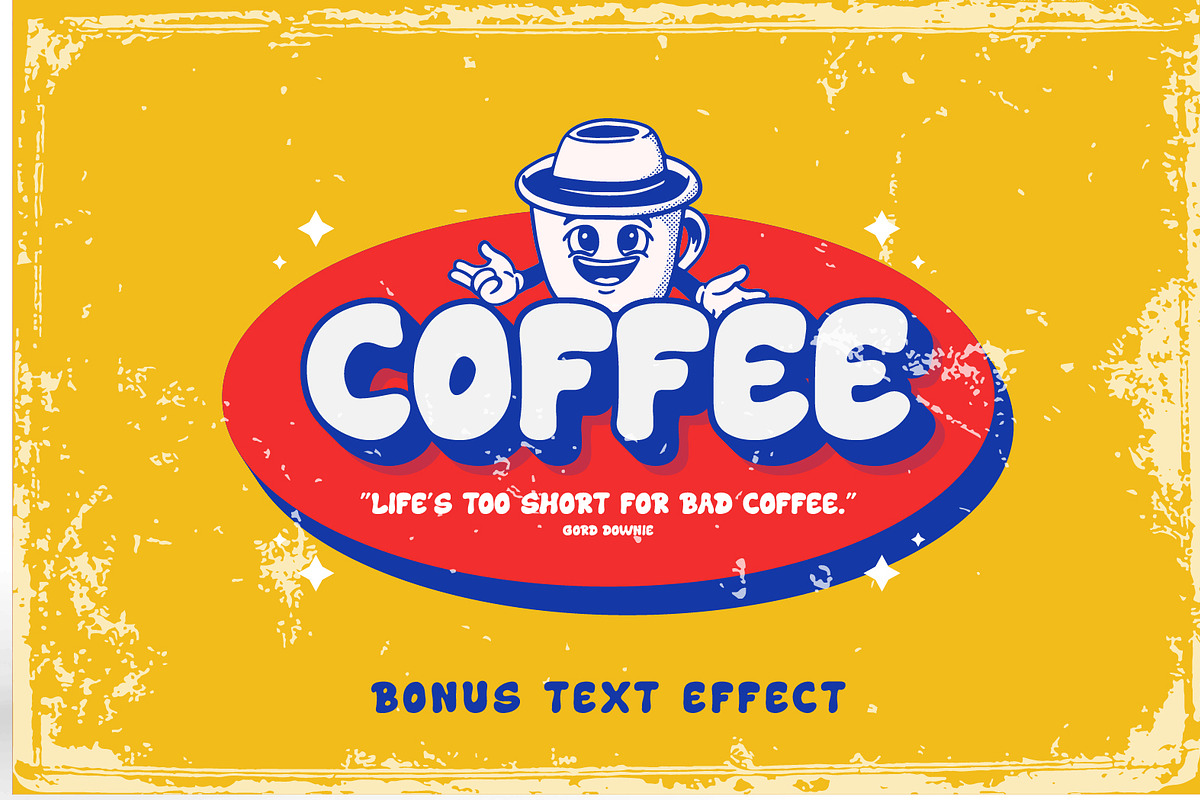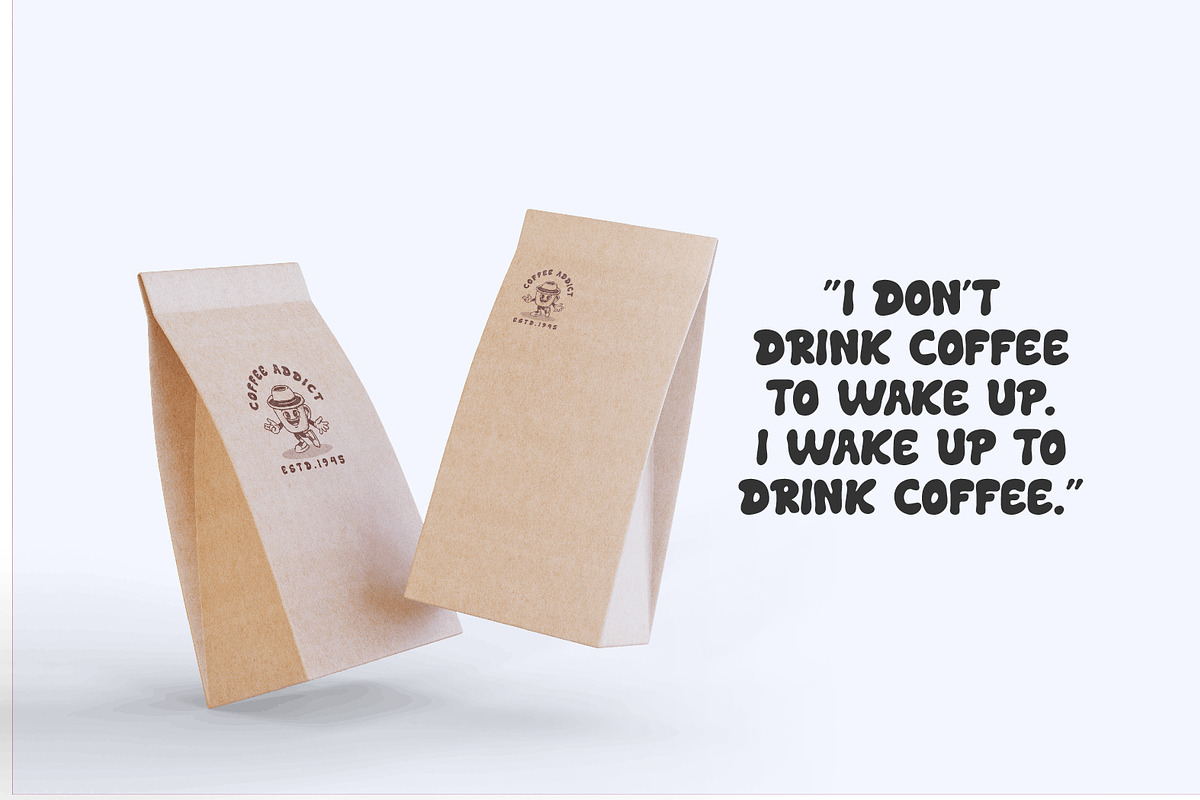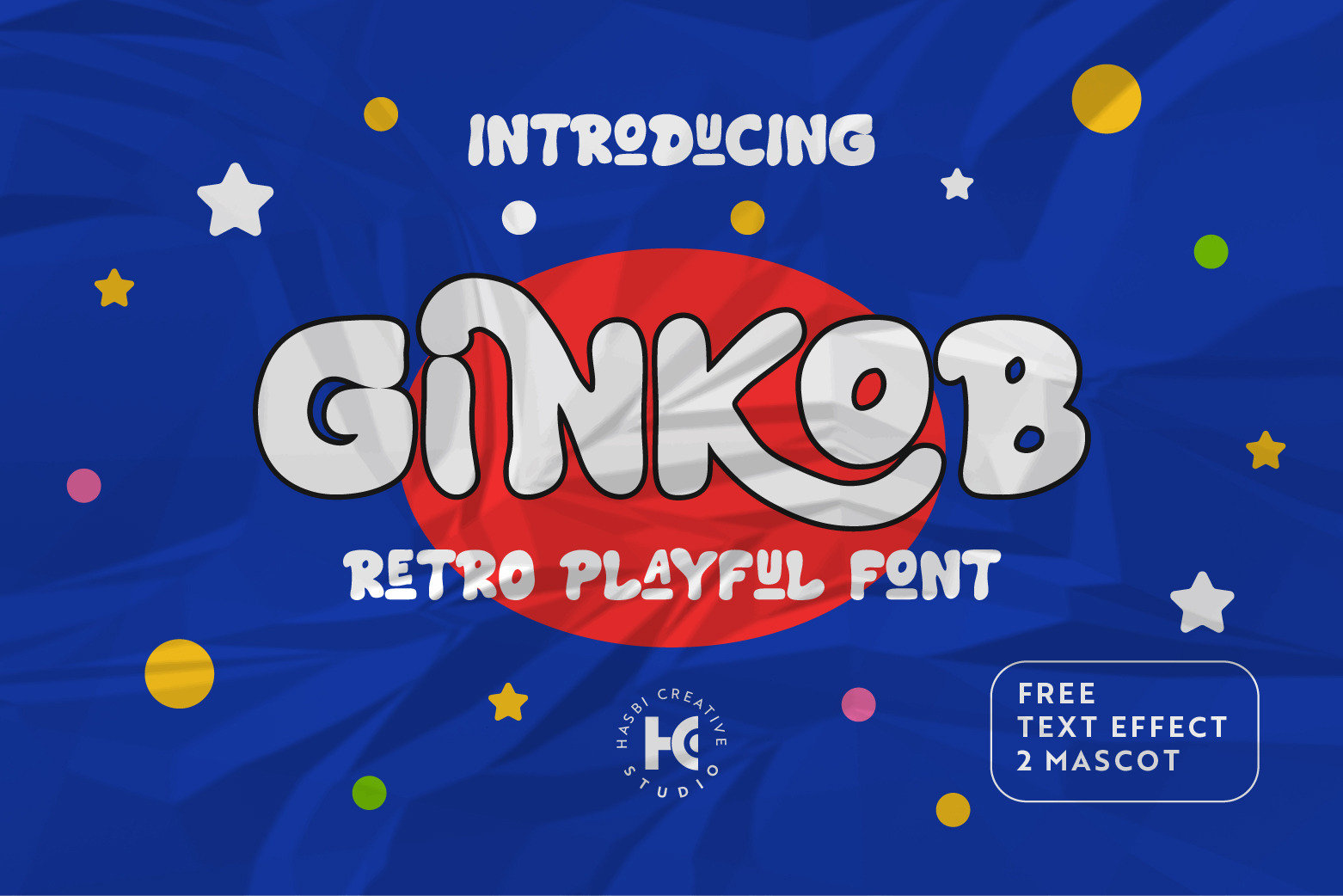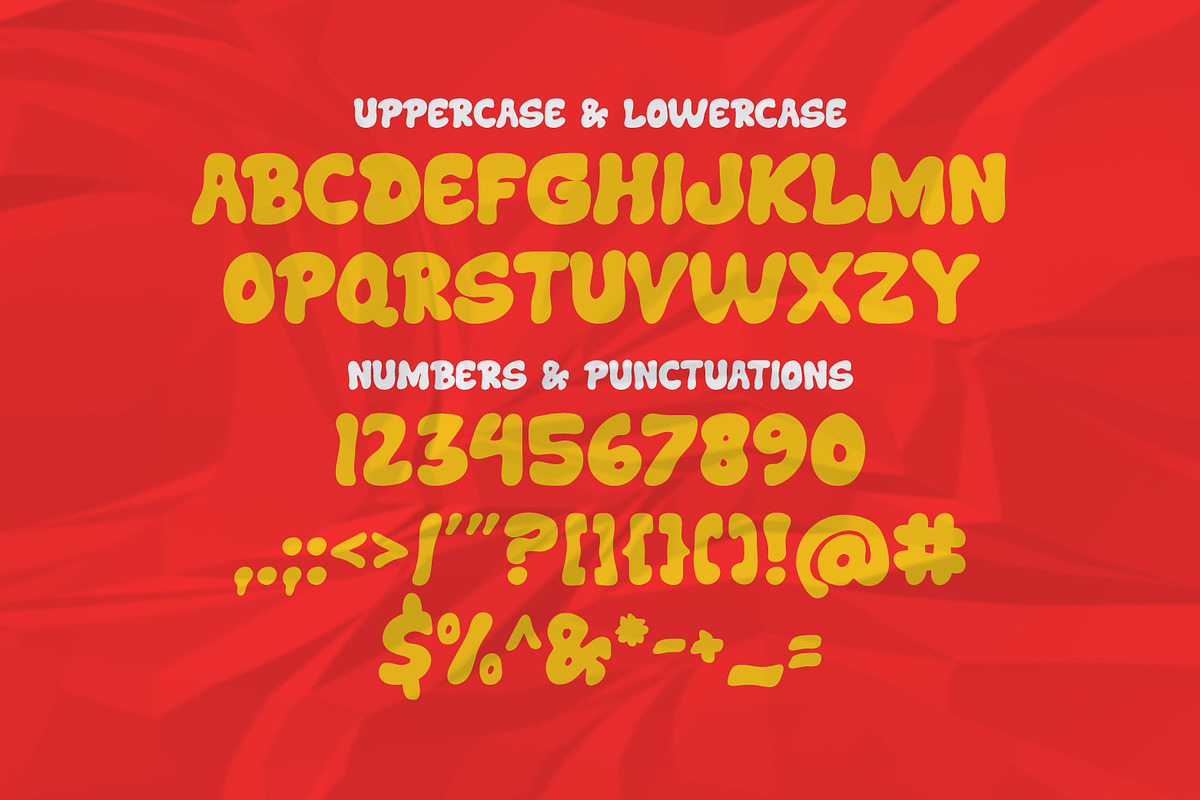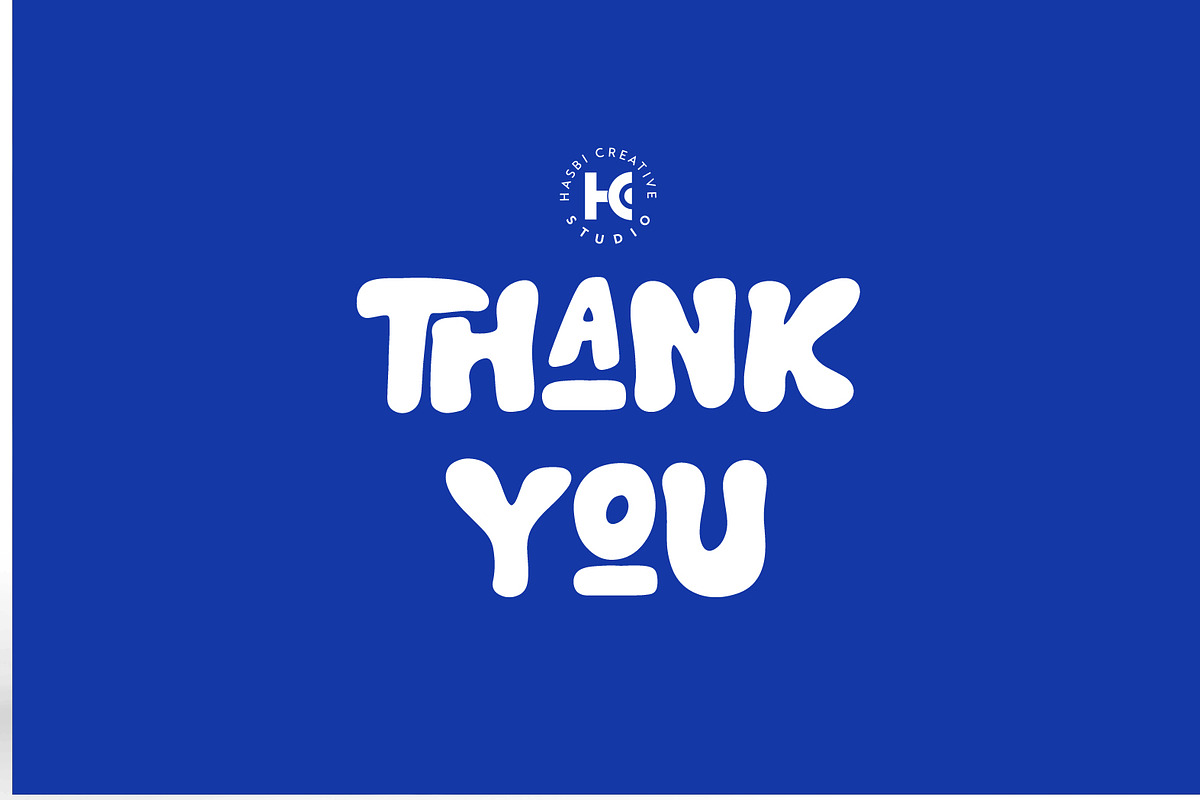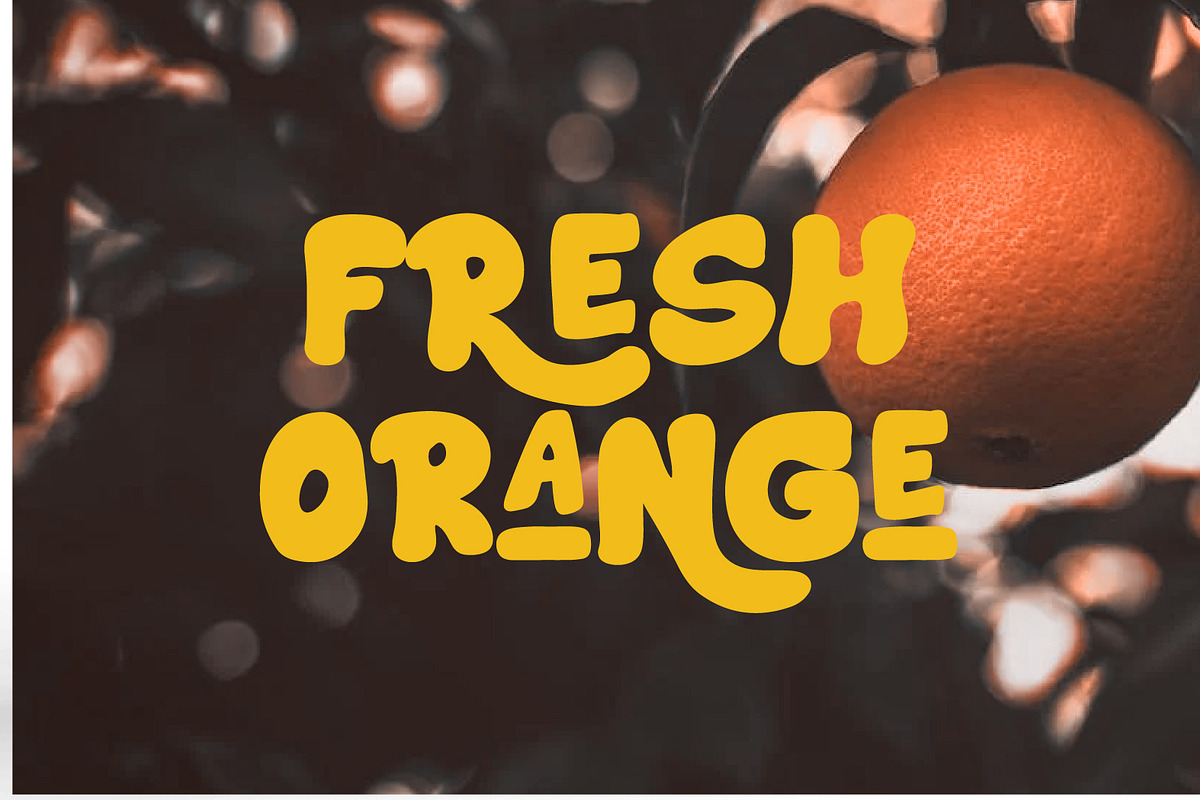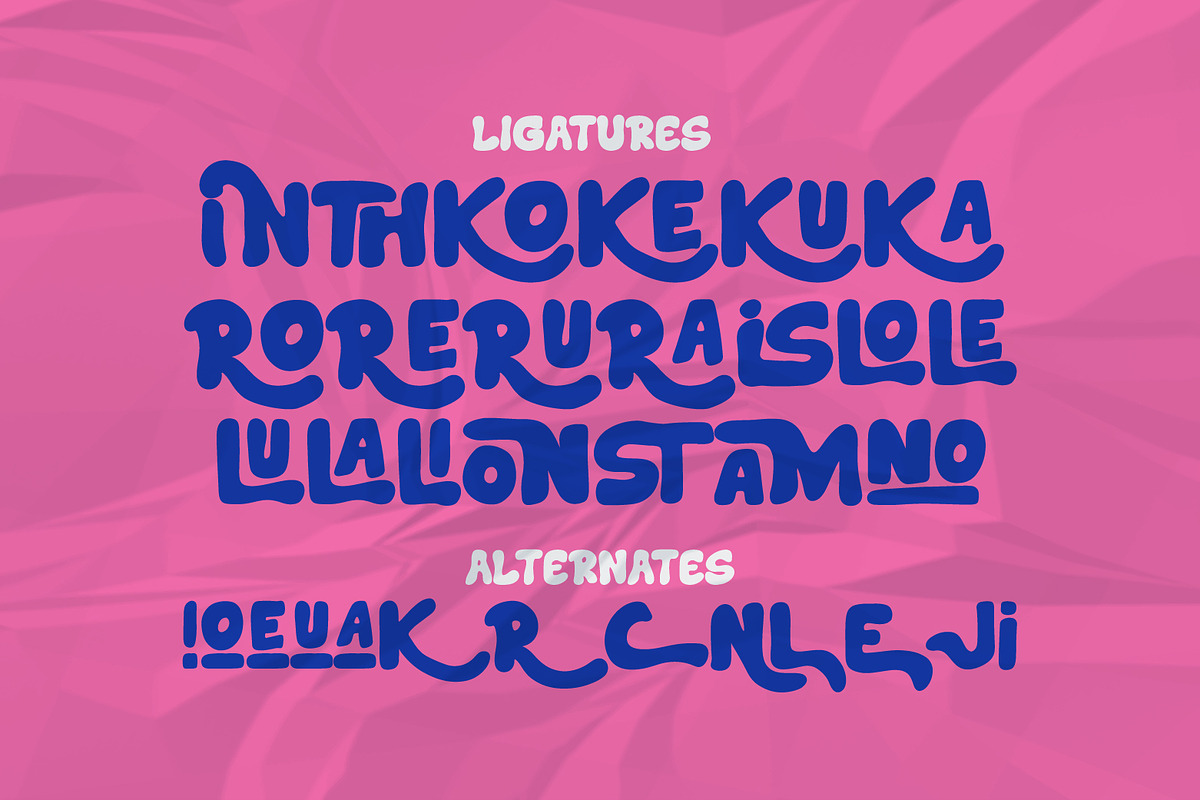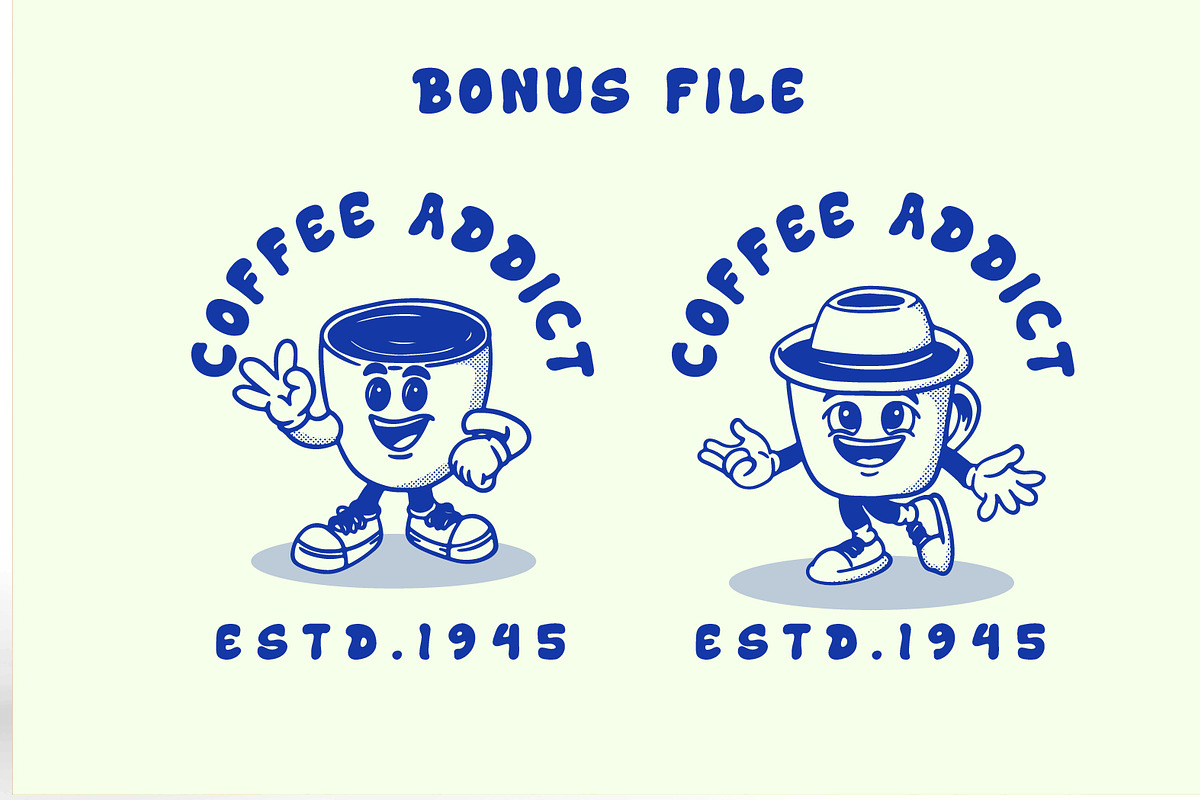
Ginkob Retro - Playful Font
Ginkob Retro Playful Font - All-Capital Font, It is perfect for headings, flyers, greeting cards, product packaging, book covers, printed quotes, logotypes, apparel designs, album covers, etc.